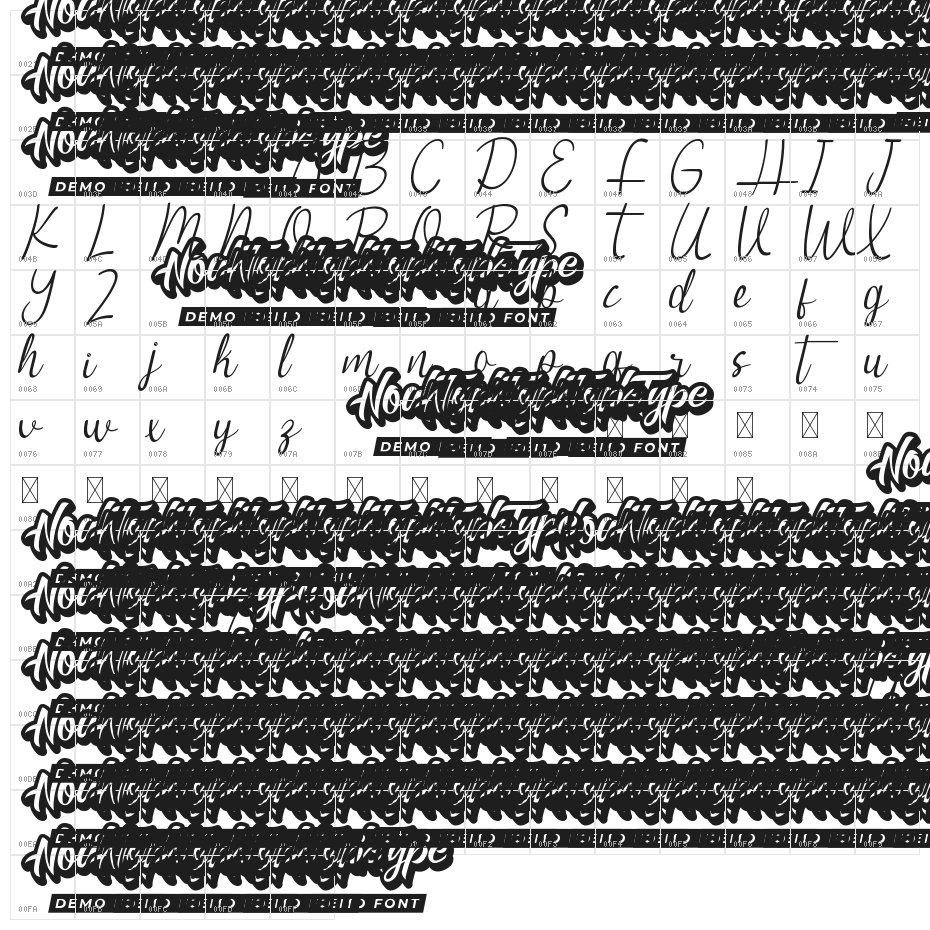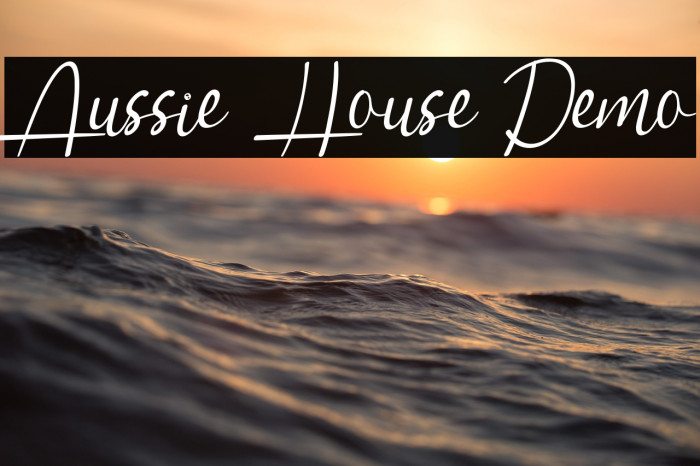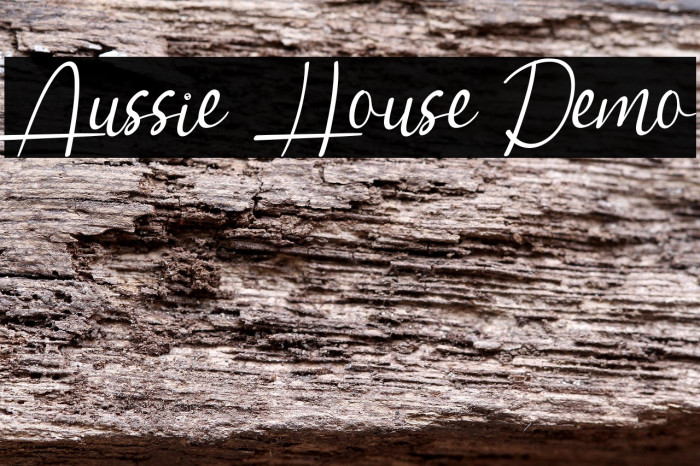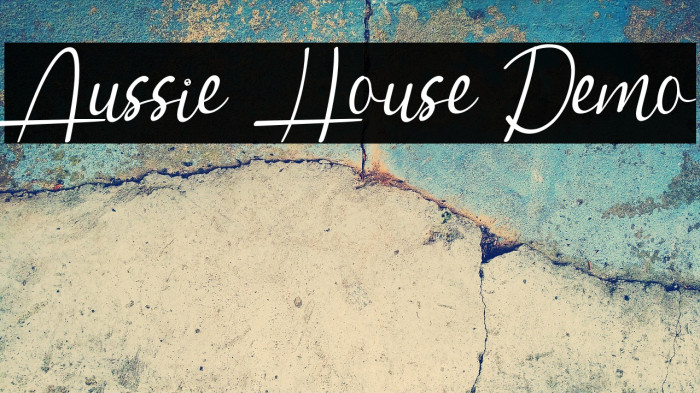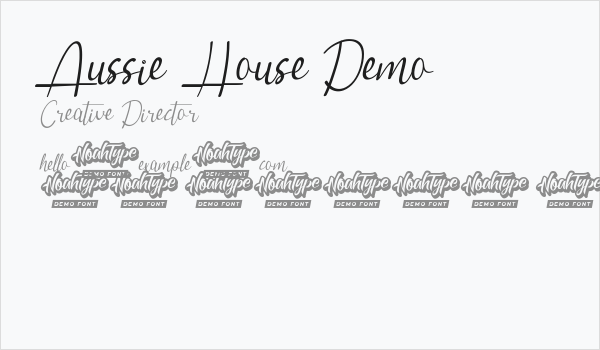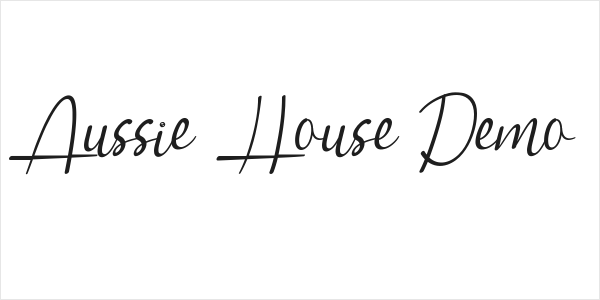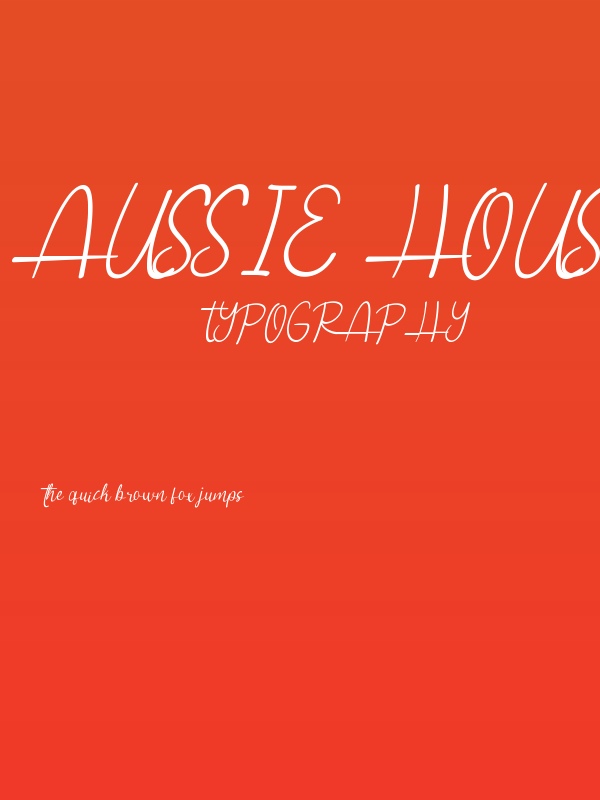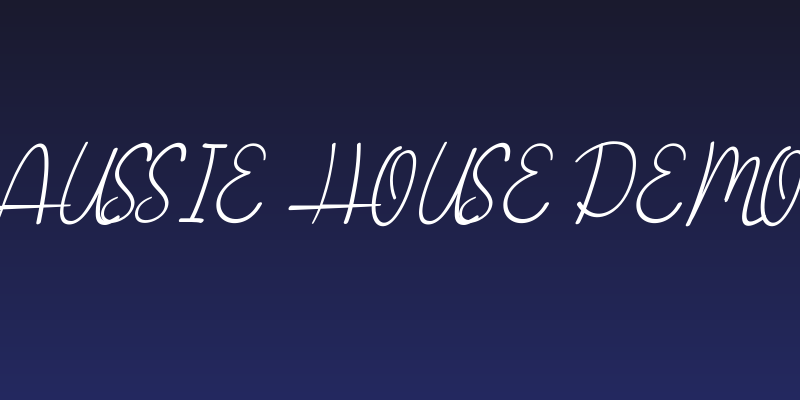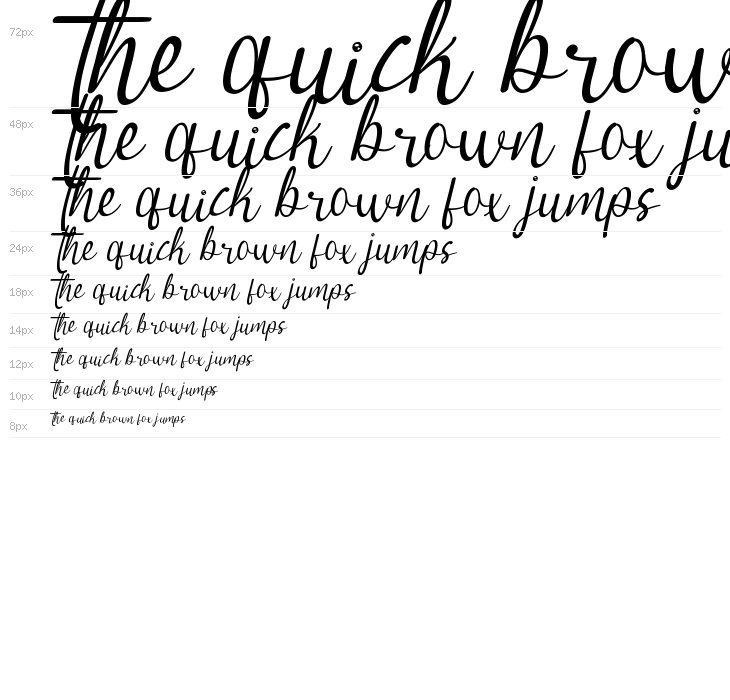
Aussie House Demo Font
Aussie House Demo Description
This font features a dynamic and flowing script style, characterized by its elegant and smooth curves. The uppercase letters are tall and slightly narrow, with a consistent slant that adds a sense of motion and fluidity. The lowercase letters are more rounded and connected, enhancing the cursive appearance. The strokes vary in thickness, providing a medium contrast that adds depth and interest to the text. This font exudes a modern yet timeless feel, making it suitable for a variety of creative applications.